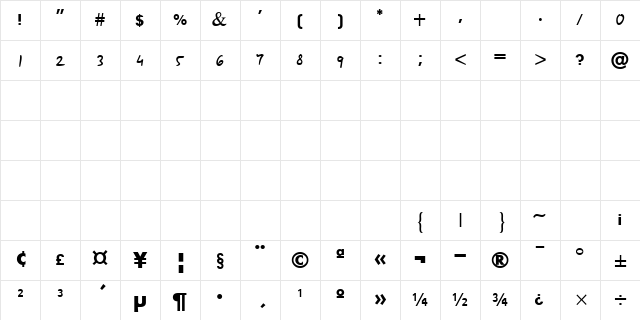
Yakov Regular
Design Context for Yakov
Yakov is a composed and adaptable typeface that performs quietly and consistently across a wide range of design contexts.